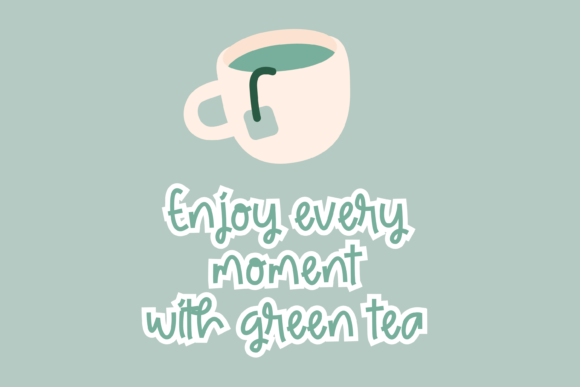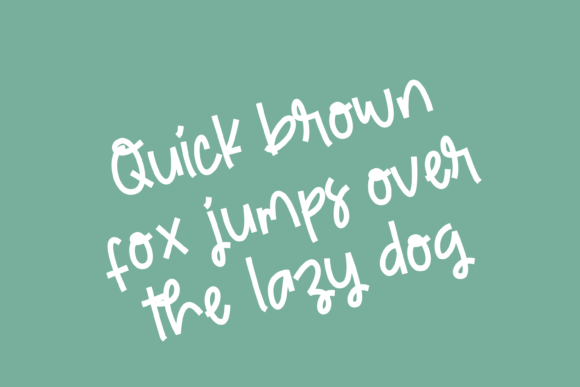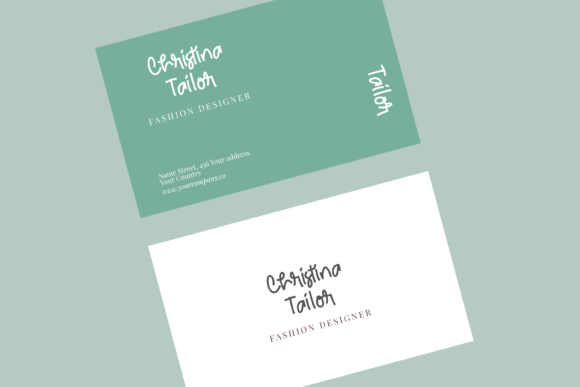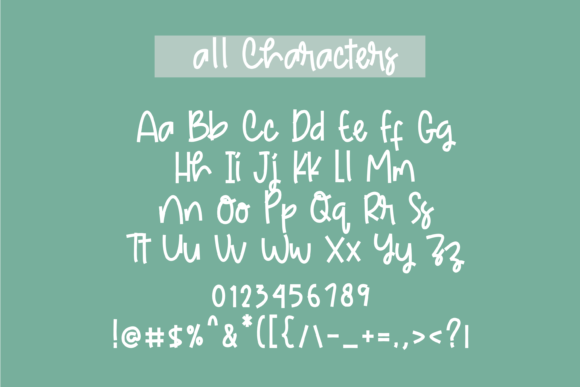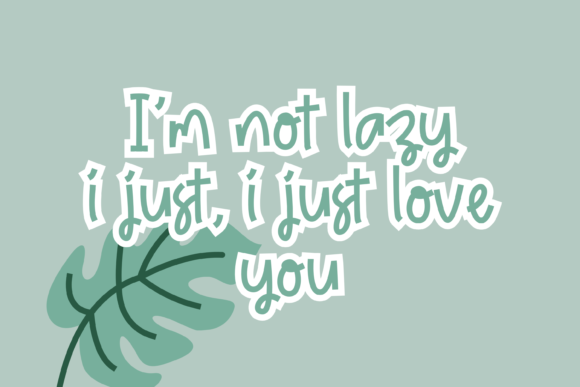
Springkled Botanical Font
About Springkled Botanical Font
Springkled Botanical is a chic, refined script font that emanates sophistication and elegance. Its stylish alternates and ligatures make this font the perfect match for any project.